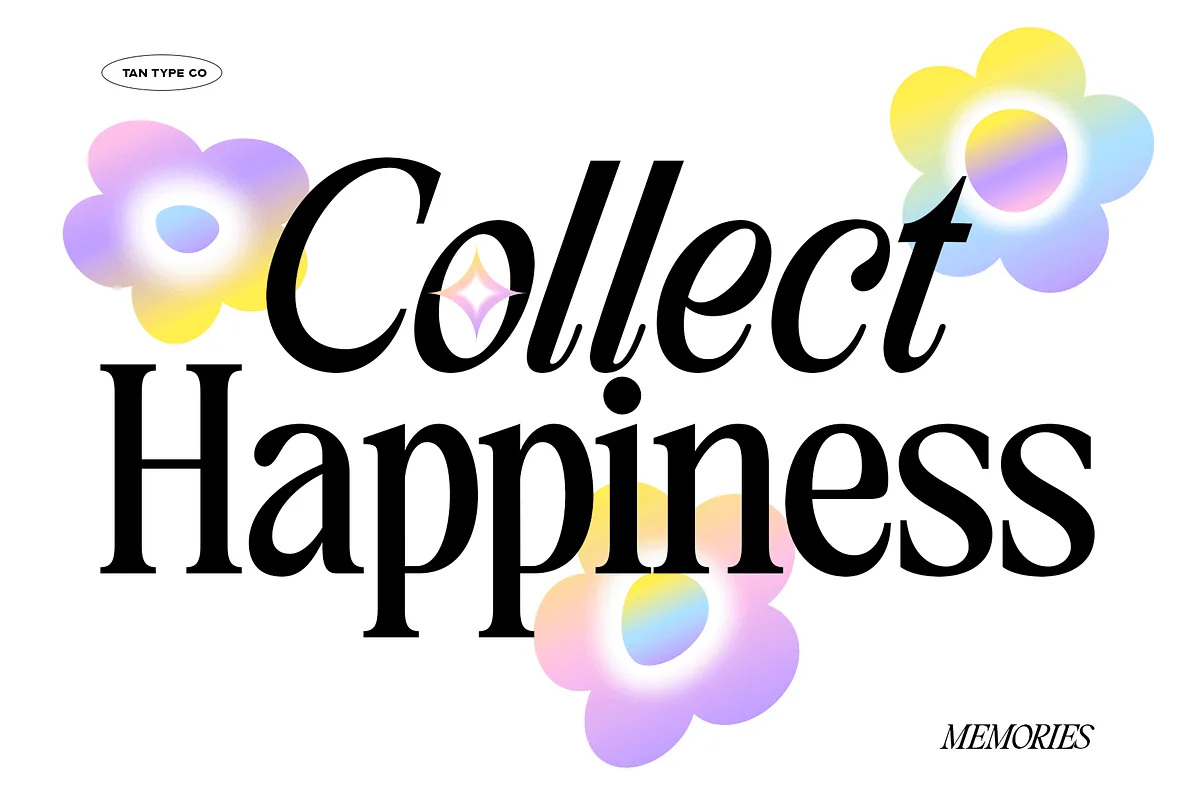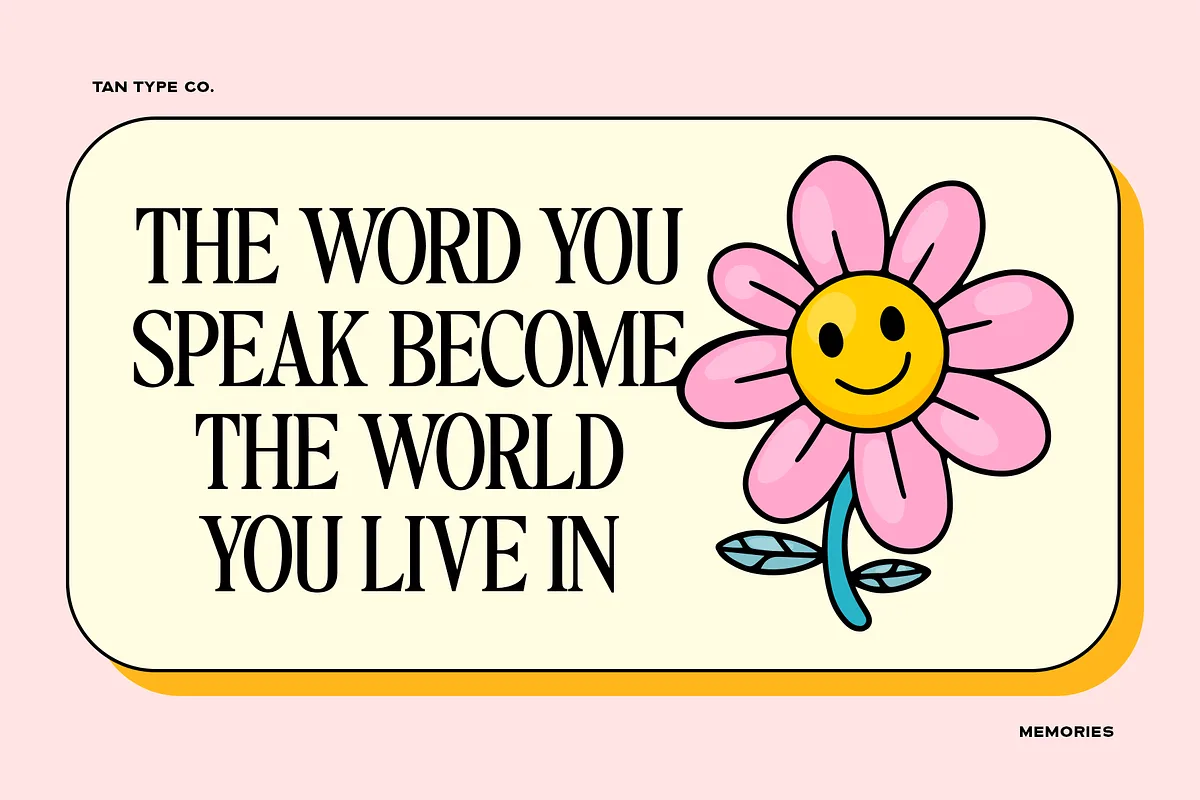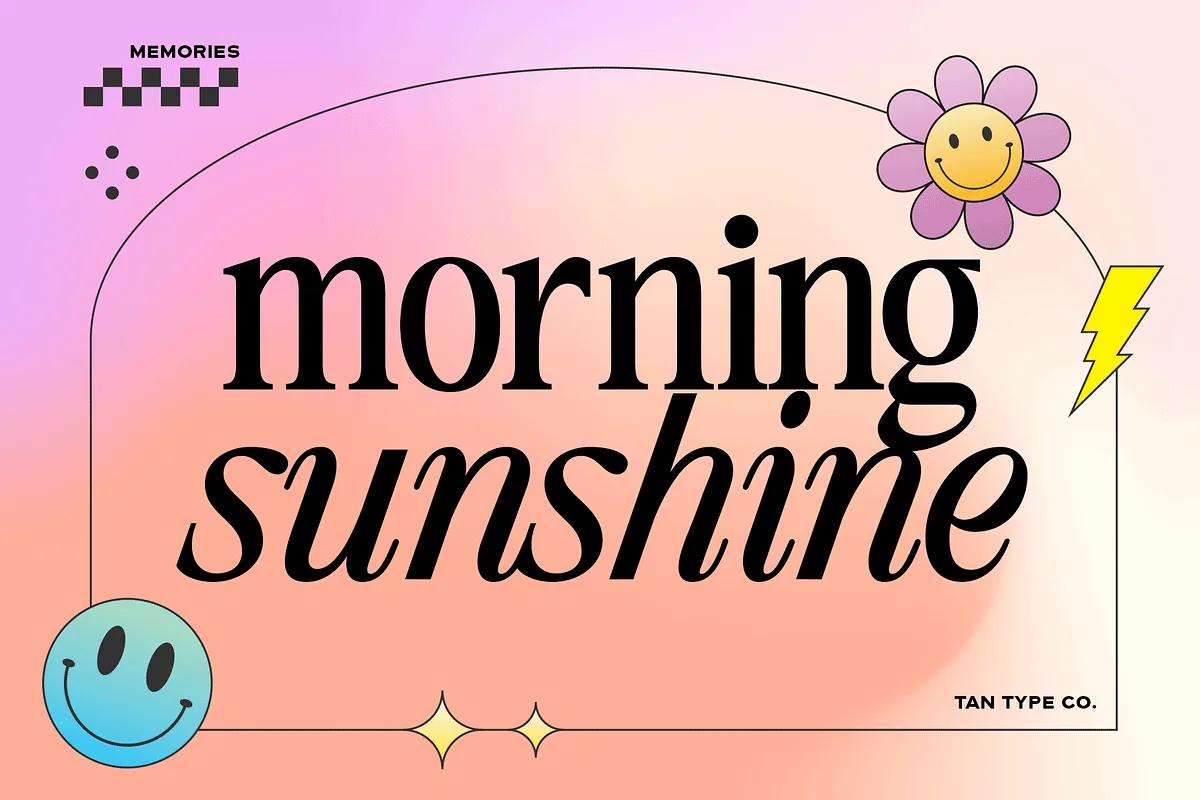
Tan – Memories Font
TAN – MEMORIES is a classic serif typeface with tight kerning. Perfect as a compliment for our display typefaces or a standalone when you need subtler mood. It fits perfectly with invitation card designs, company logos, movie titles, movie names, business cards, book titles, brand names and various other designs.